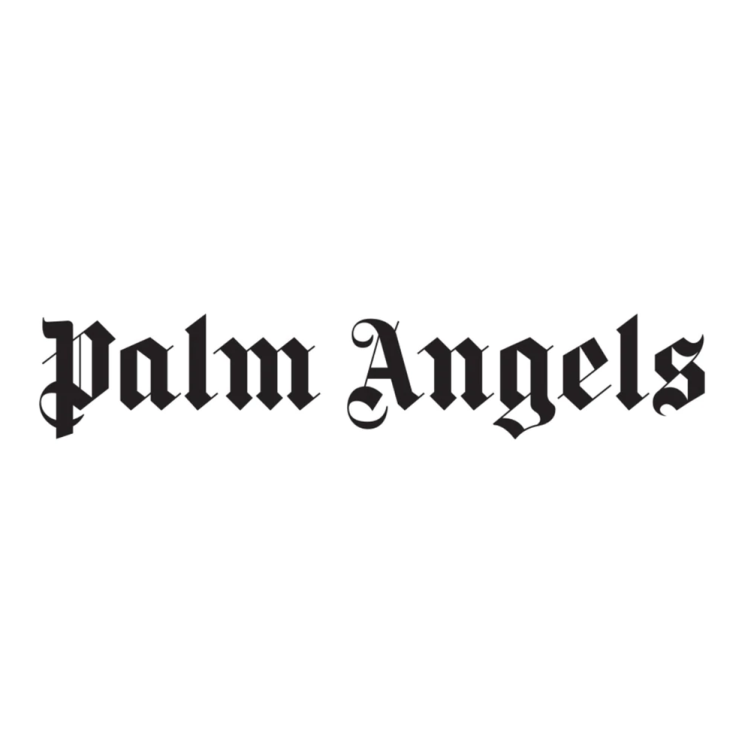
Palm Angels Font
ApparelPalm Angels is a luxury fashion label founded in 2015 by Italian art director and photographer, Francesco Ragazzi. The brand is known for its streetwear-inspired aesthetic and also collaborates with other brands and artists, such as Supreme and KAWS.
The logo of Palm Angels seems to be inspired by Fette Gotisch, which was inspired by the Gothic script style of the 19th century. Digital revivals or interpretations of the gothic script include Gothique from Mecanorma and Fette Gotisch from Linotype.